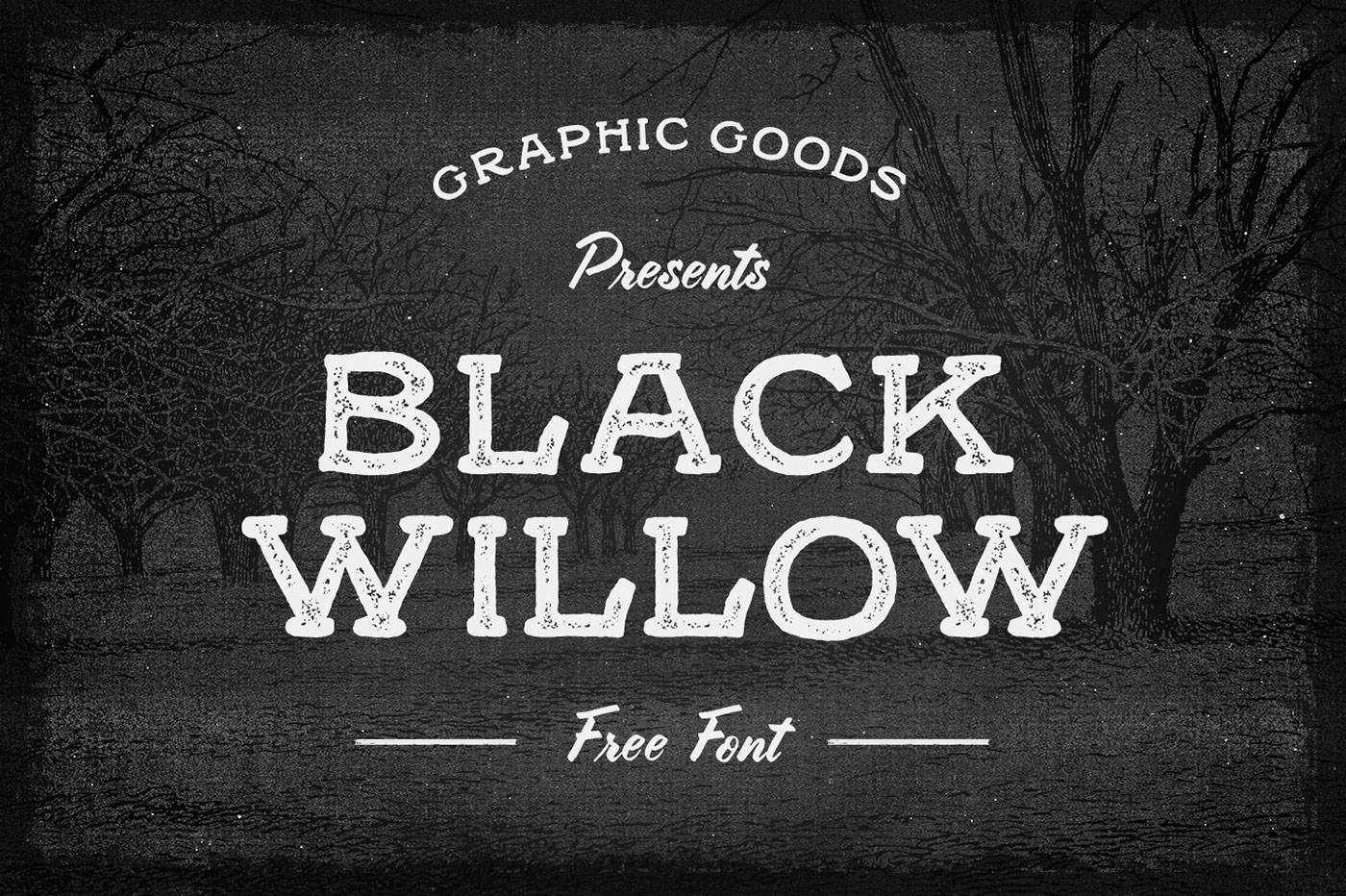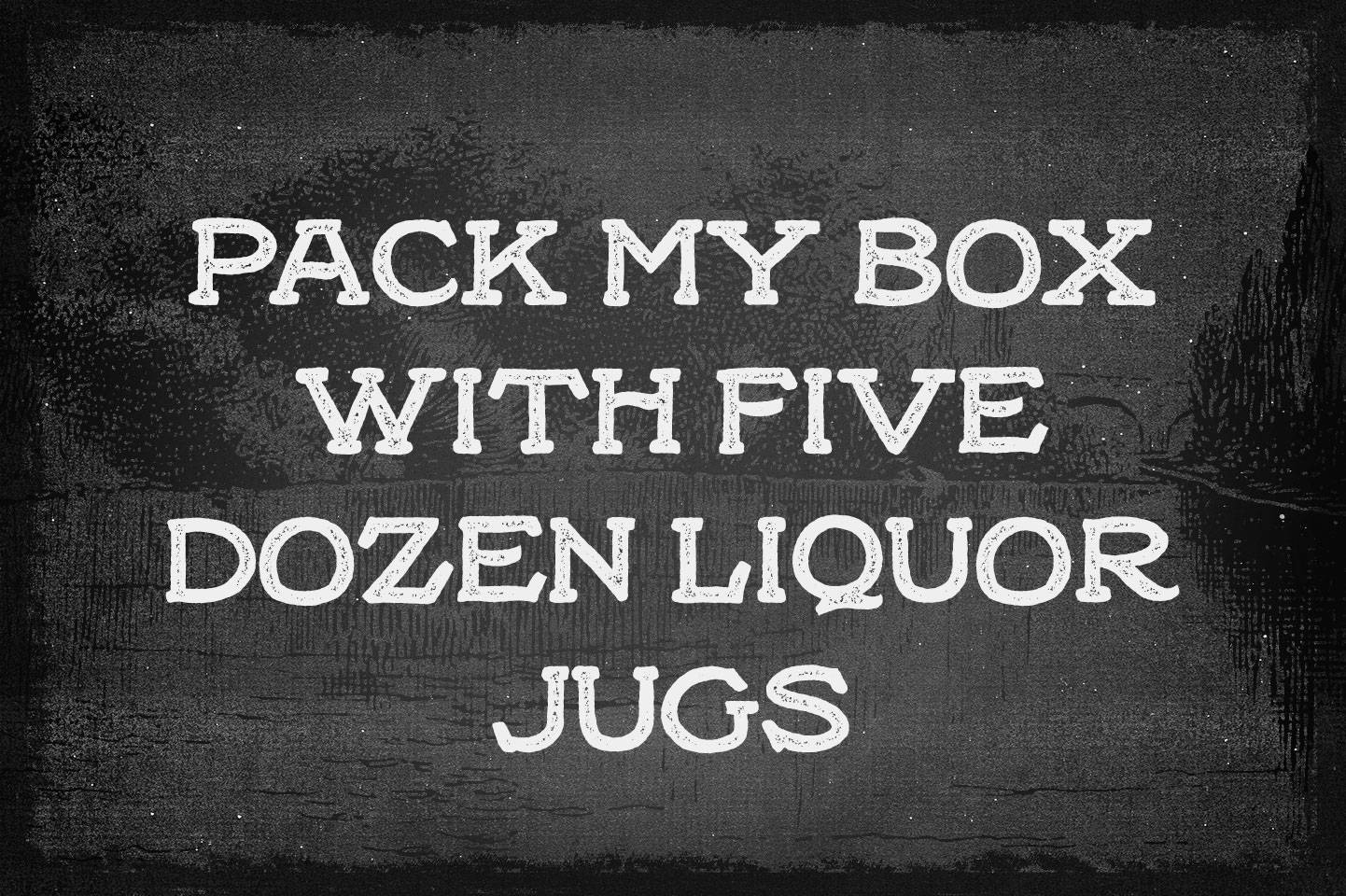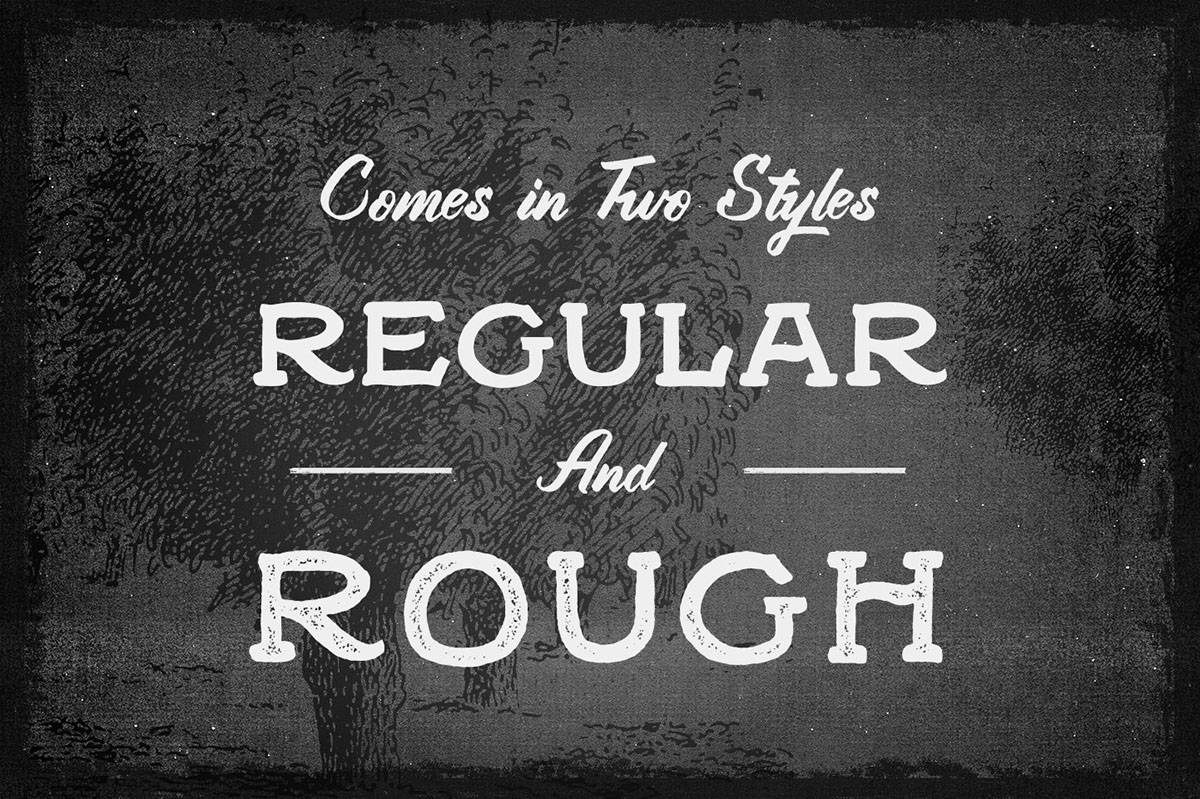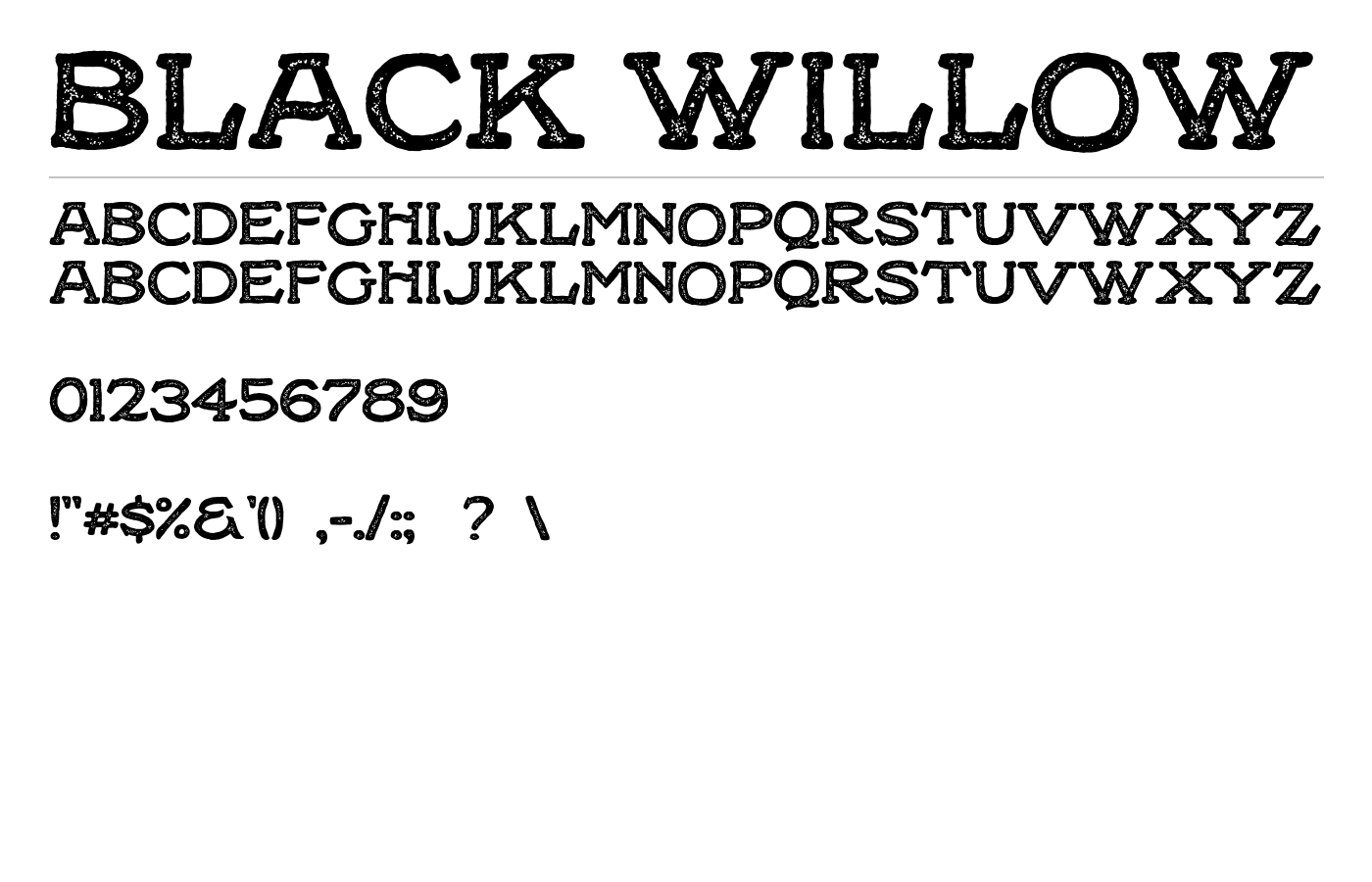
Black Willow is a bold, slab serif font with a distinctive textured, distressed look that gives it a rustic and vintage feel. Its strong, blocky letterforms and rough edges make it ideal for designs seeking a handcrafted, rugged charm, perfect for branding, posters, and headlines where character and impact are key.
Black Willow Font
About Black Willow Font
| Font family | Black Willow Font |